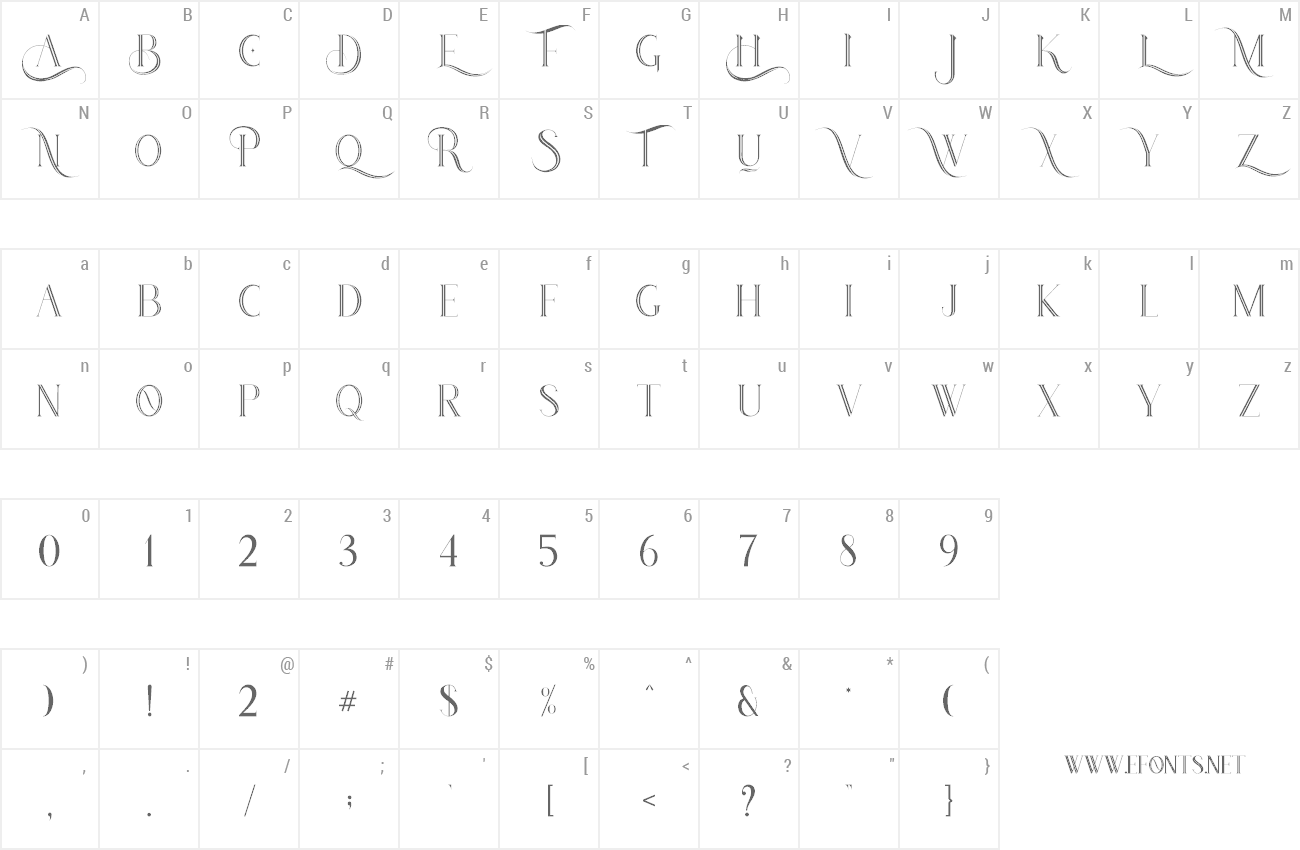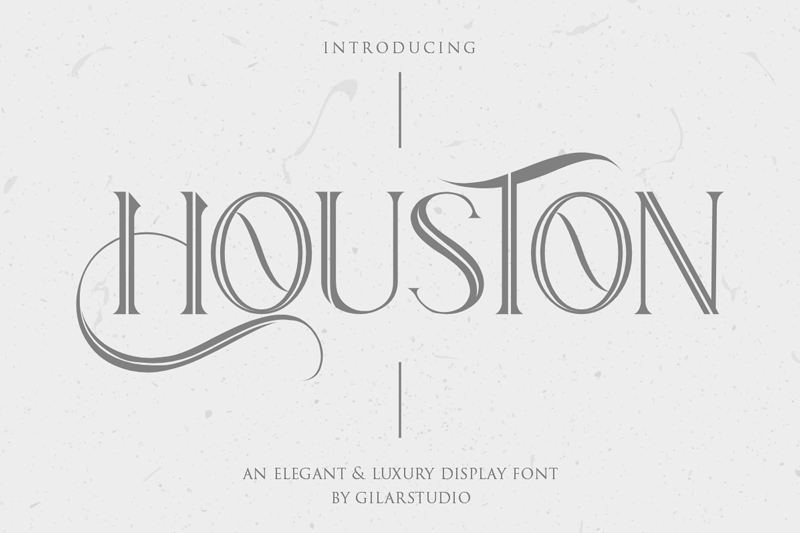
Preview and download Houston Font. Created by Gilar Studio in Fancy Retro styles with Free for personal use license.
| Font name: | Houston |
Introducing Houston - An Elegant & Luxury Display Font is my new elegant serif font that will bring in your projects a touch of luxury and style. Houston - An Elegant & Luxury Display Font will work perfectly for fashion, e-commerce brands, trend blogs, wedding boutiques or any business that wants to appear upscale and chic.Flip through all the previews and get inspired like I was while creating this font. Houston - An Elegant & Luxury Display Font also Suitable for Logo, greeting cards, quotes, posters, branding, name card, stationary, design title, blog header, art quote, typography, art, modern envelope, book design,craft design, blog website, instagram, branding, invitations, business cards, weddings,Clothing Branding, product packaging, magazine headers,book title, or any purpose to make your art/design project look pretty and trendy. Product Content : -Houston OTF -Houston TTF -Houston WOFF Features : -Uppercase & Lowercase -Numerals & Punctuations (OpenType Standard) -Accents/Multilingual characters -PUA Encoded See Full Version Here : https://www.creativefabrica.com/product/houston-7/ref/236330 Feel Free contact me if u any question. Give it a try! You will surely love it! Thanks and have a wonderful day, Gilar :) |